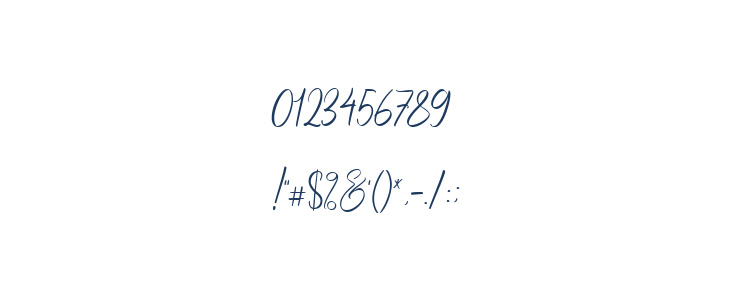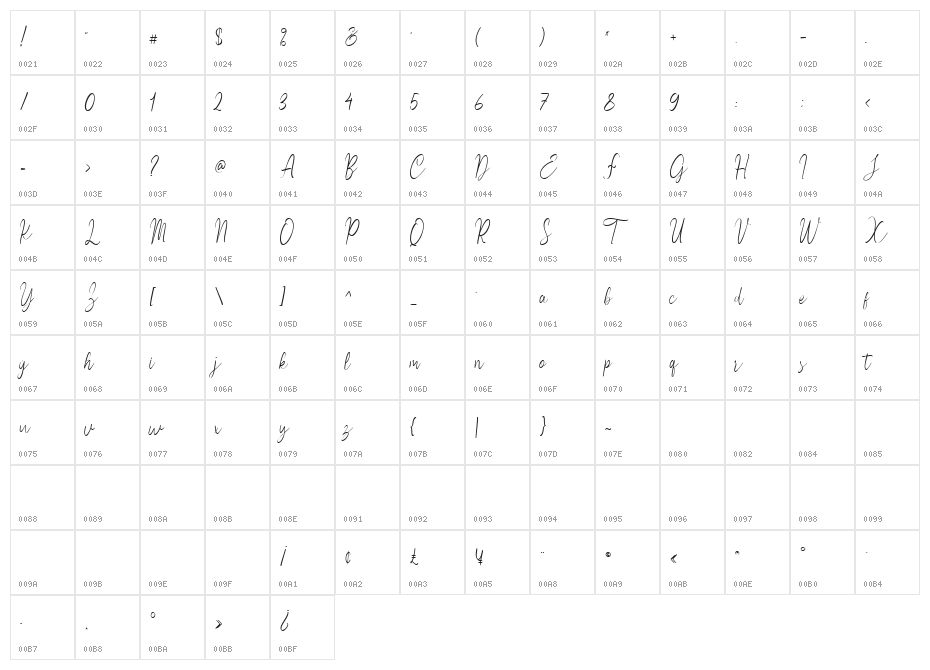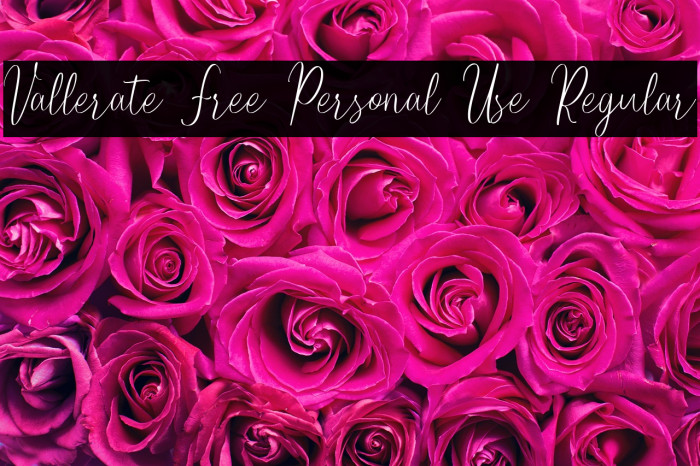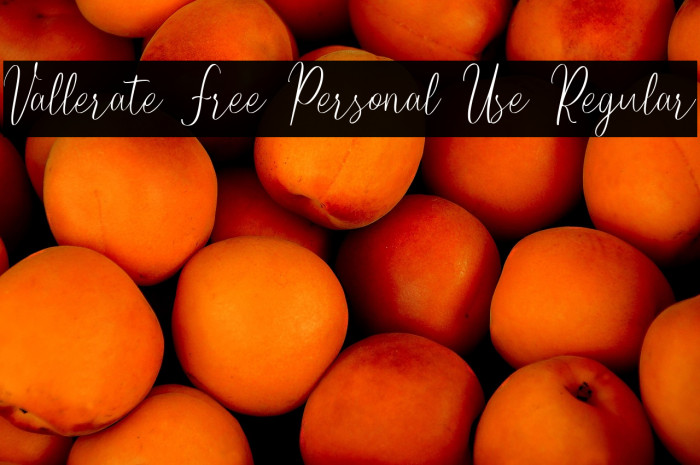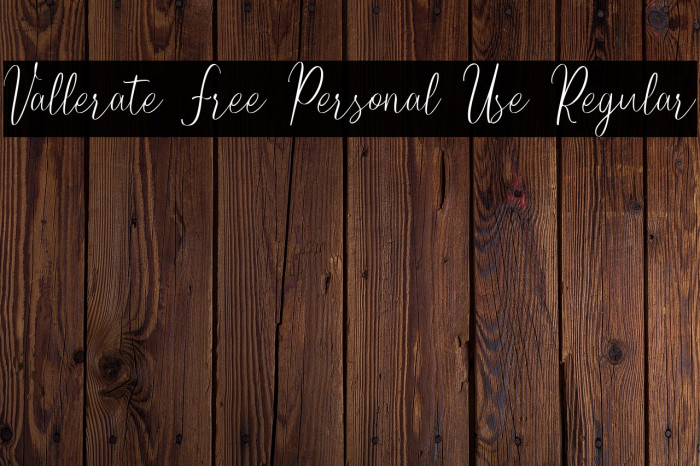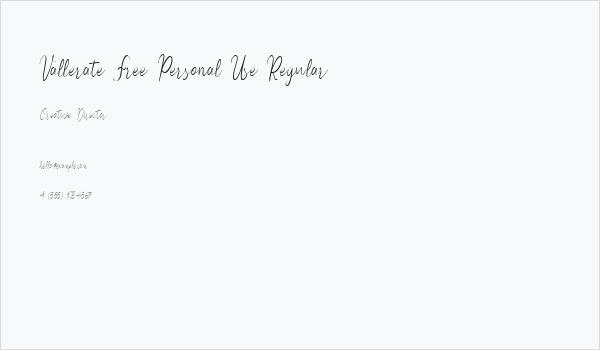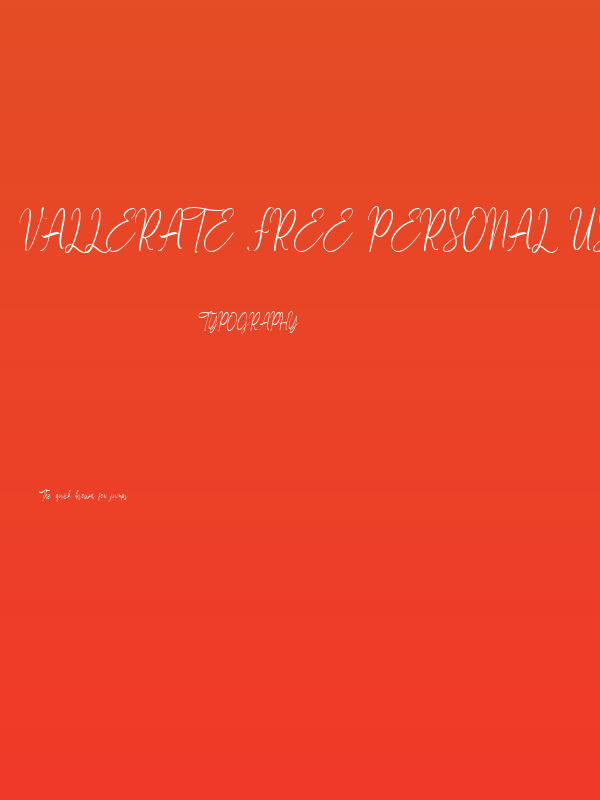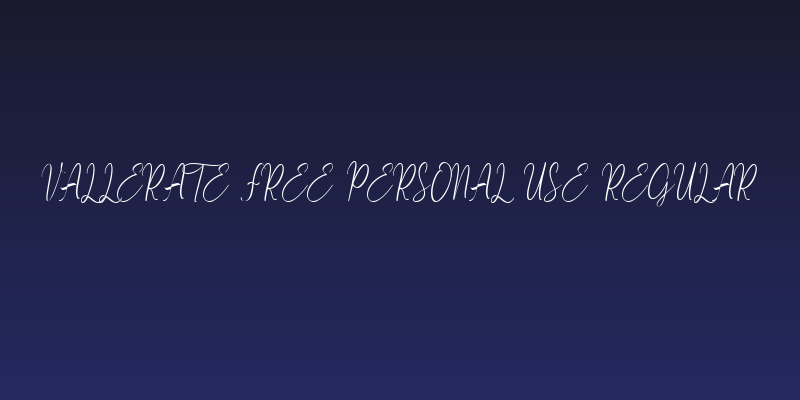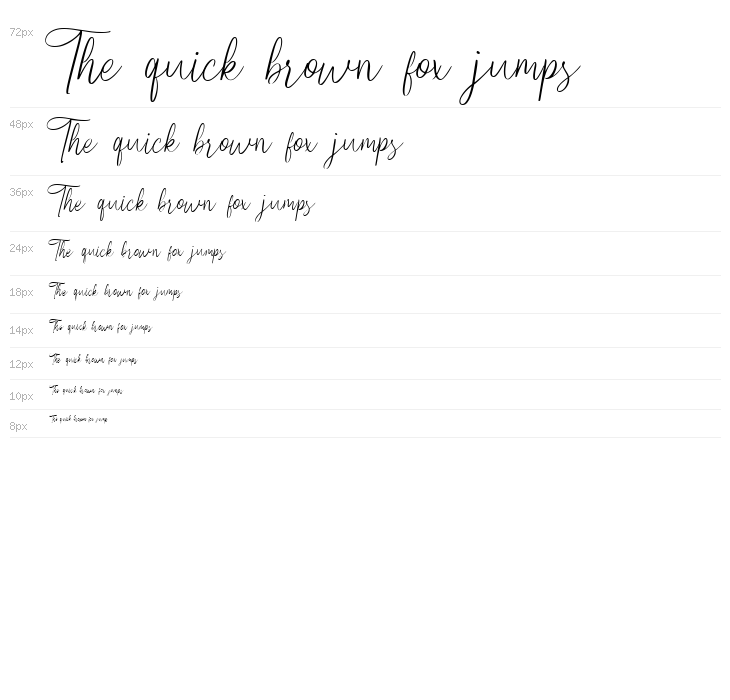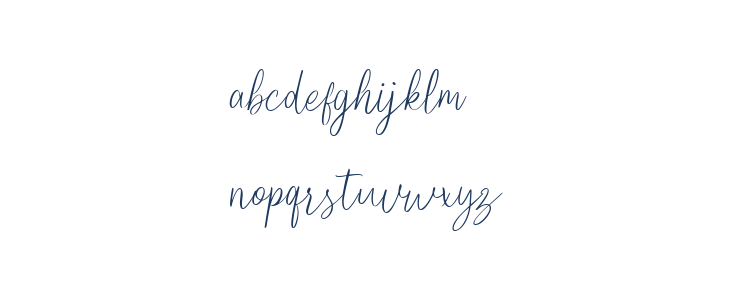
Vallerate Free Personal Use Regular Font
Vallerate Free Personal Use Regular Description
This font features an elegant and flowing script style, characterized by its smooth, cursive strokes and graceful curves. The uppercase letters are tall and slender, with a slight slant that adds a touch of sophistication. The lowercase letters maintain a consistent flow, enhancing readability while preserving the artistic flair. Numbers and special characters are designed to complement the overall aesthetic, ensuring a cohesive look across all text. This font exudes a sense of elegance and charm, making it suitable for a variety of creative applications.